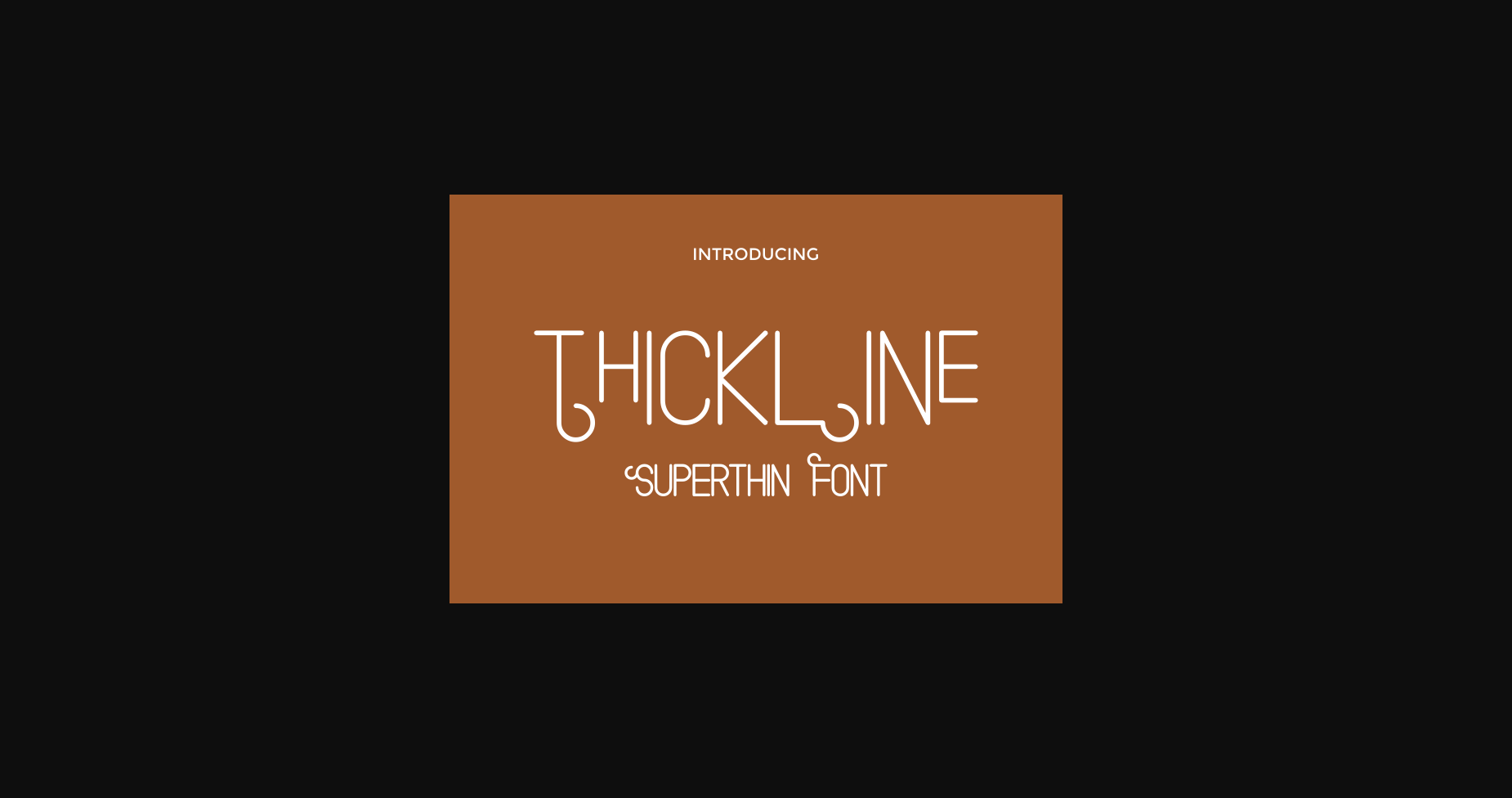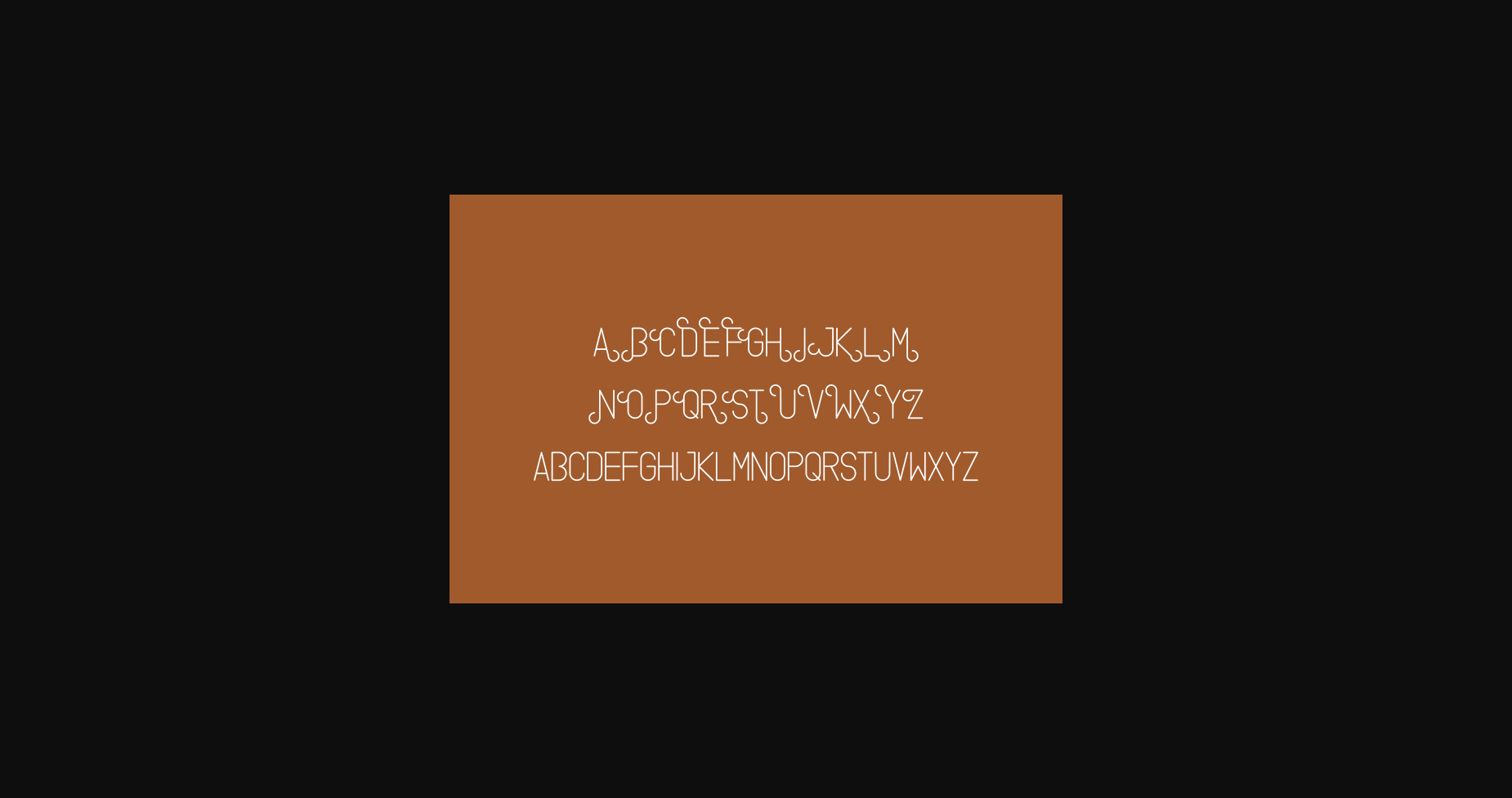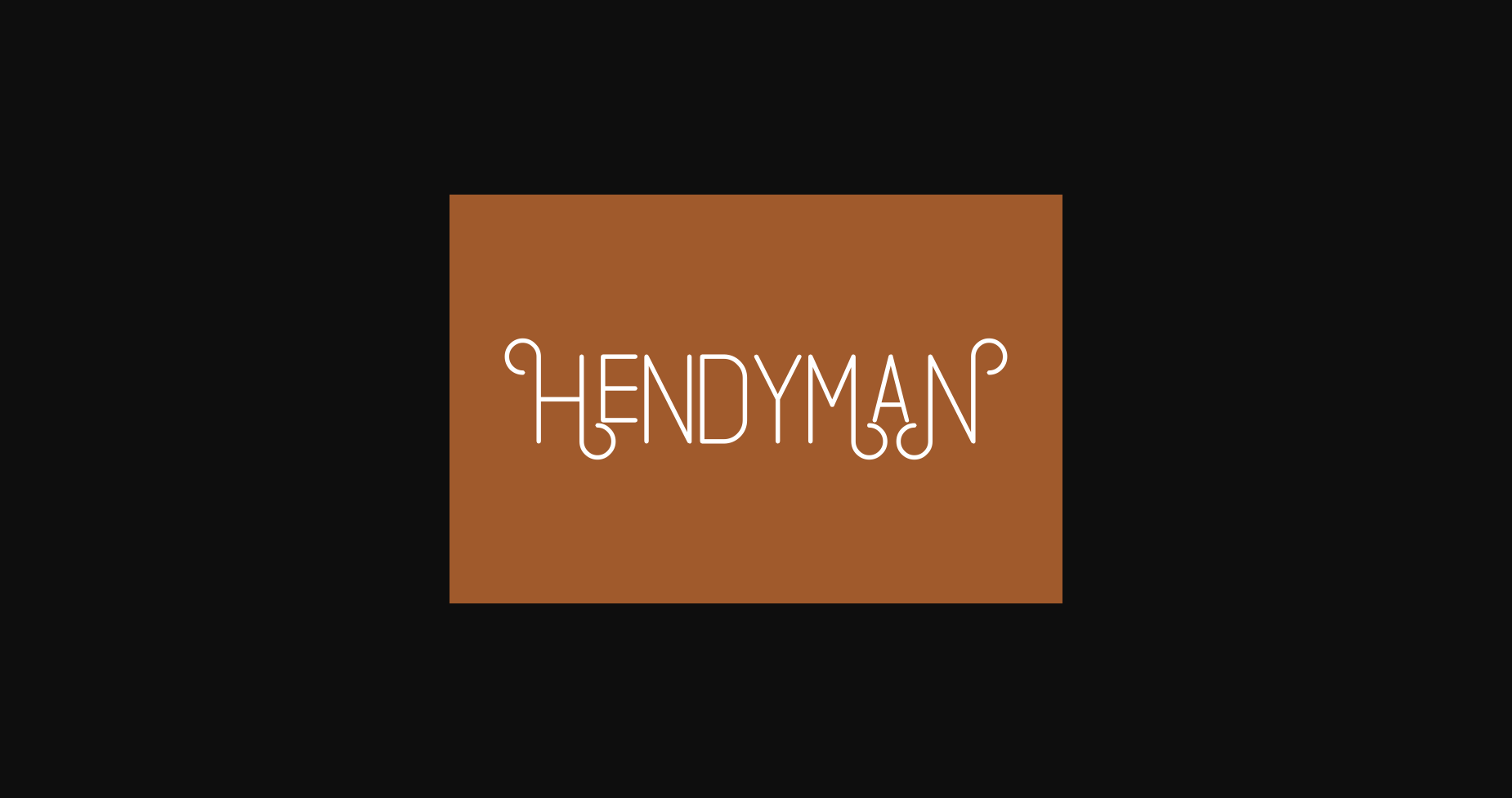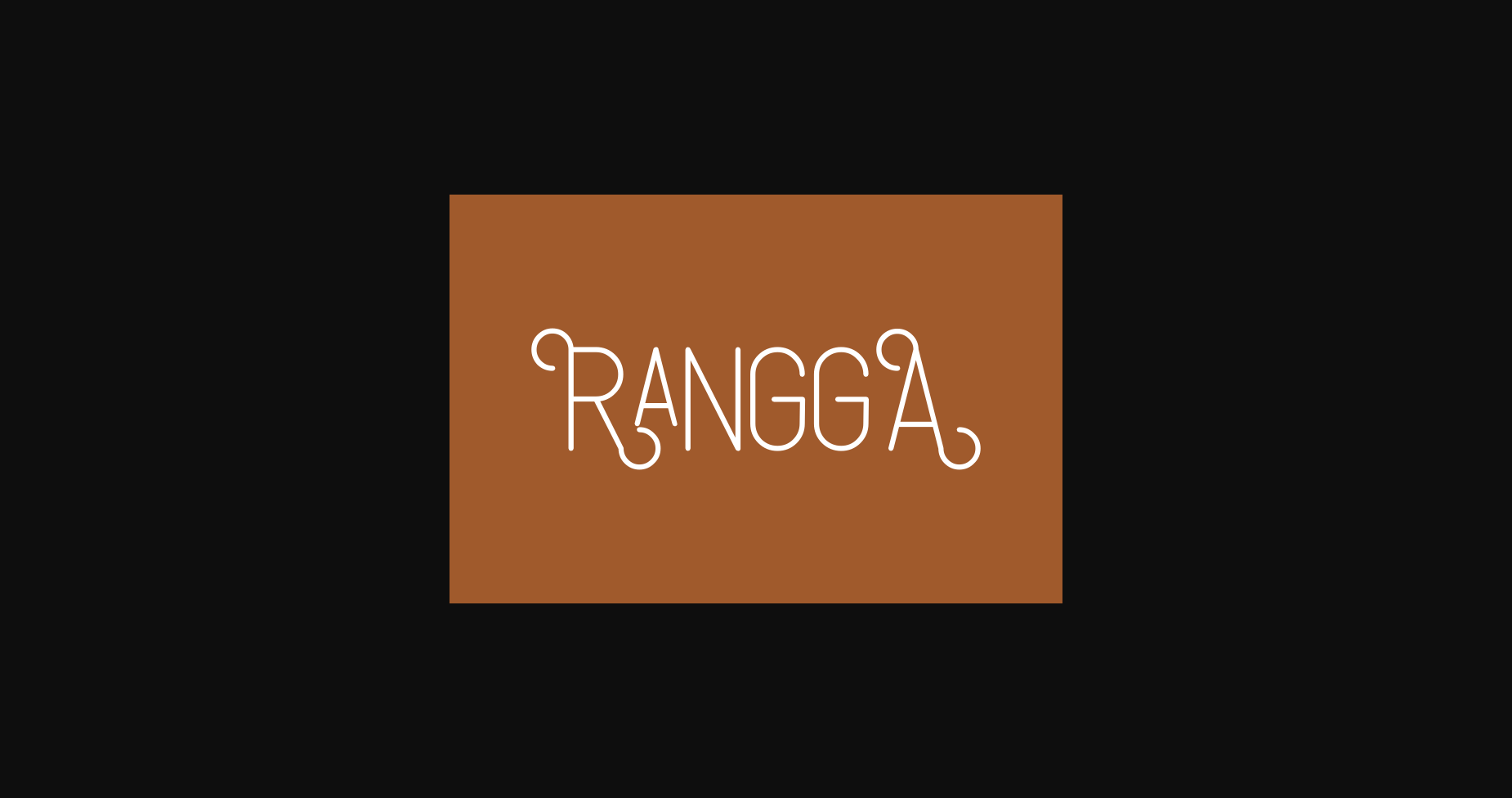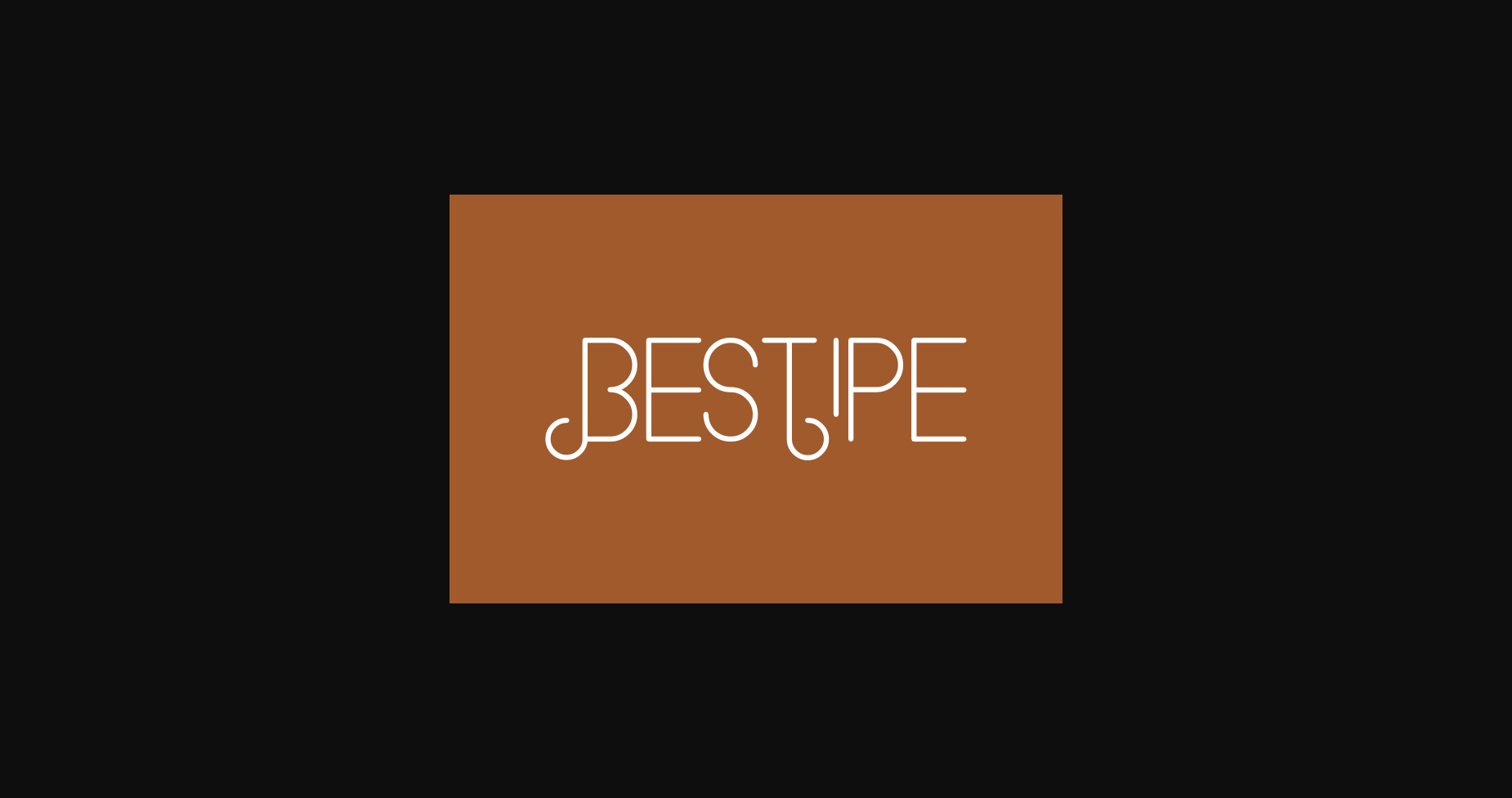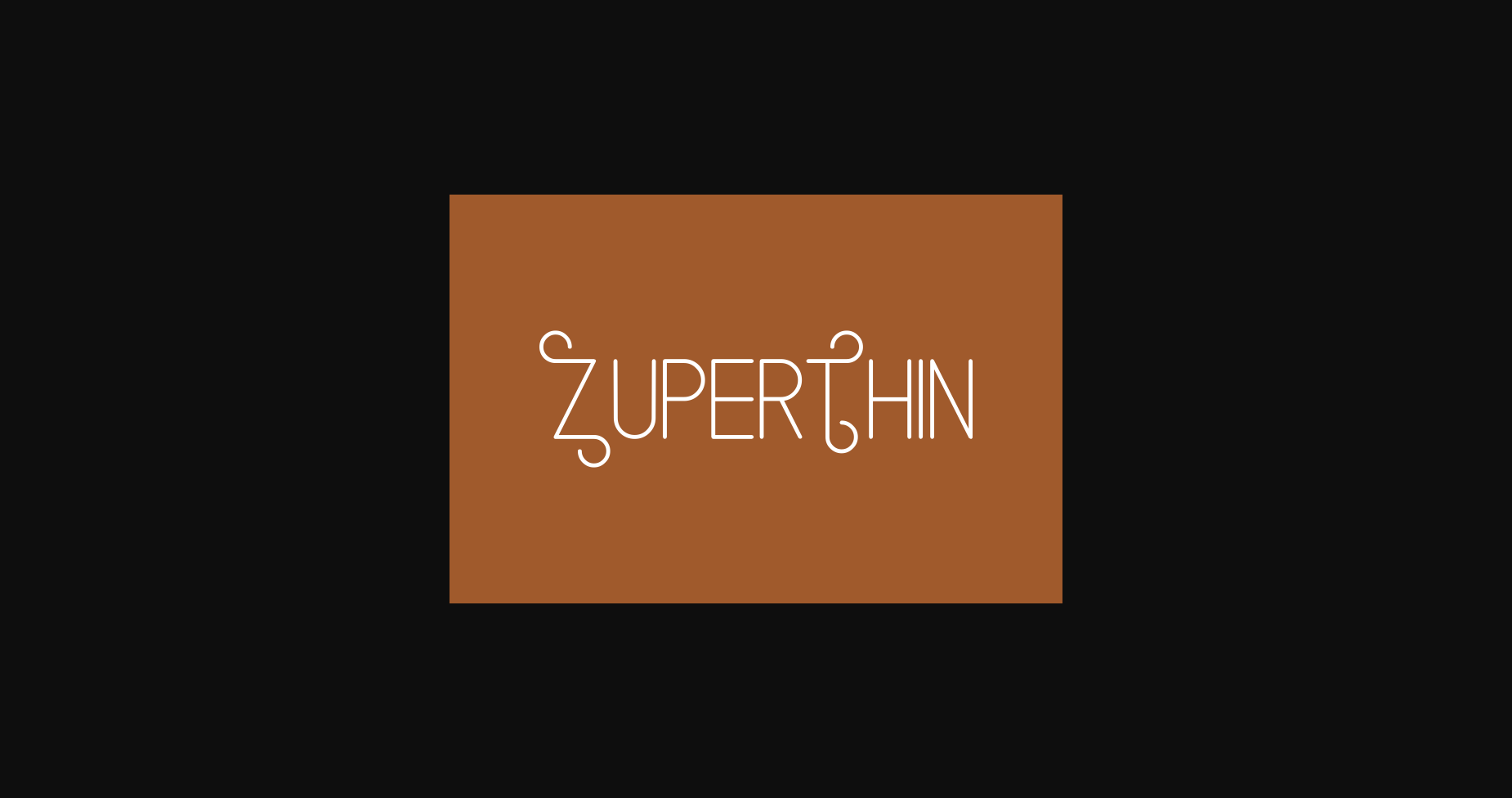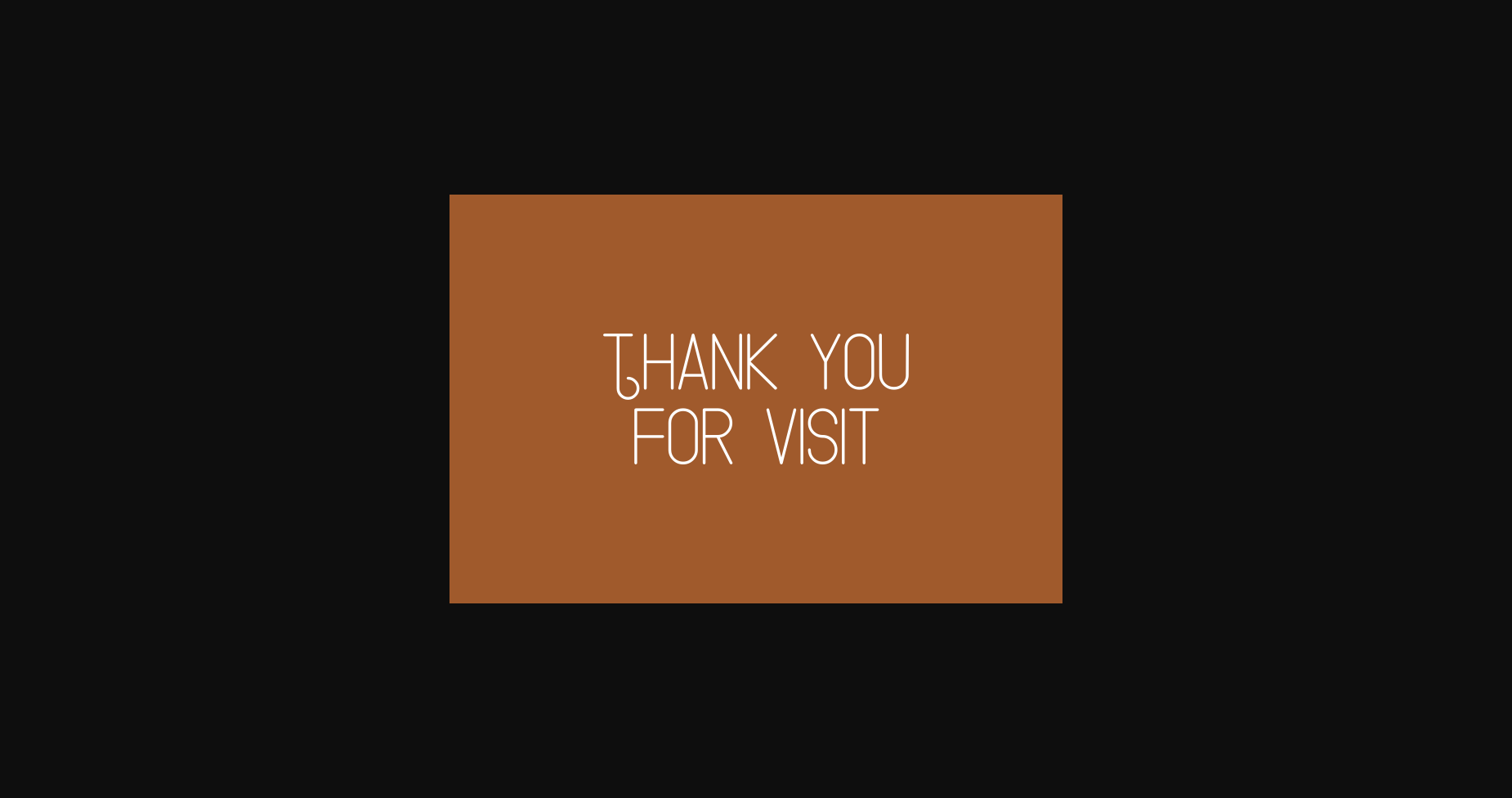
HomeSans Serif FontsThickline Font Sans Serif Fonts Thickline Font FacebookXPinterestWhatsApp 1 of 9 ... Thickline Font Poster 2... Thickline Font Poster 3... Thickline Font Poster 4... Thickline Font Poster 5... Thickline Font Poster 6... Thickline Font Poster 7... Thickline Font Poster 8... Thickline Font Poster 9... About Thickline Font Thickline is an elegant, thin and unique sans serif font. It can easily be matched to an incredibly large set of projects, so add it to your creative ideas and notice how it makes them stand out! DOWNLOAD NOW People also explored Dayling Script Font Merry Deer Font Sophin Font Lucky Green Duo Font Henley Font Mobile Icons Font Mr. Night Font Yellow Dingbat Banners Font Frijoles 478 0 TagsThickline Font Previous articleMidnight Dreamer FontNext articleNatasha Walker Font LEAVE A REPLY Cancel reply Comment: Please enter your comment! Name:* Please enter your name here Email:* You have entered an incorrect email address! Please enter your email address here Website: Save my name, email, and website in this browser for the next time I comment. Personal Use Free Befindisa Personal Use Free Read more about this font Hunters Personal Use Free Read more about this font Gila Personal Use Free Read more about this font Fontmageddon Personal Use Free Read more about this font BLOG Free Fonts Risk: Why Free Fonts Can Be Dangerous for Designers Free Fonts Risk: Why Free Fonts Can Be Dangerous for Designers Using free fonts is a common practice in web and graphic design. However, the... 5 Fonts That Will Dominate Design Trends in 2026 Modern Sans-Serif Fonts That Brands Love in 2025 To increase your work productivity, choose the most readable fonts.